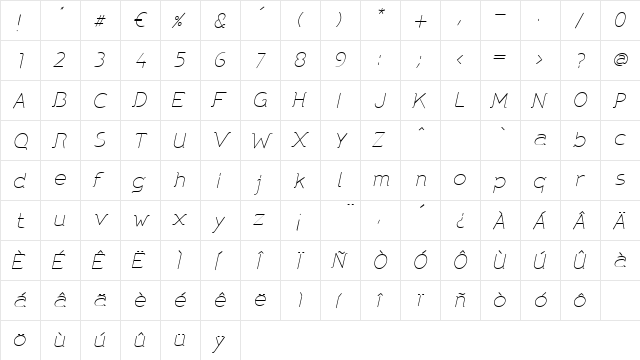
DNNR MediumItalic
Design Context for DNNR Typeface
DNNR takes a measured approach to typography — its balanced proportions and neutral character make it a reliable workhorse for both digital and print work. Its italic angle brings a sense of urgency and motion to the letterforms.
Pro Tip: Use DNNR for emphasis, pull quotes, and subheadings where its slanted energy can add rhythm to the layout.